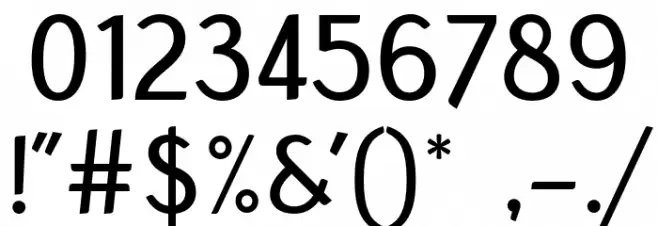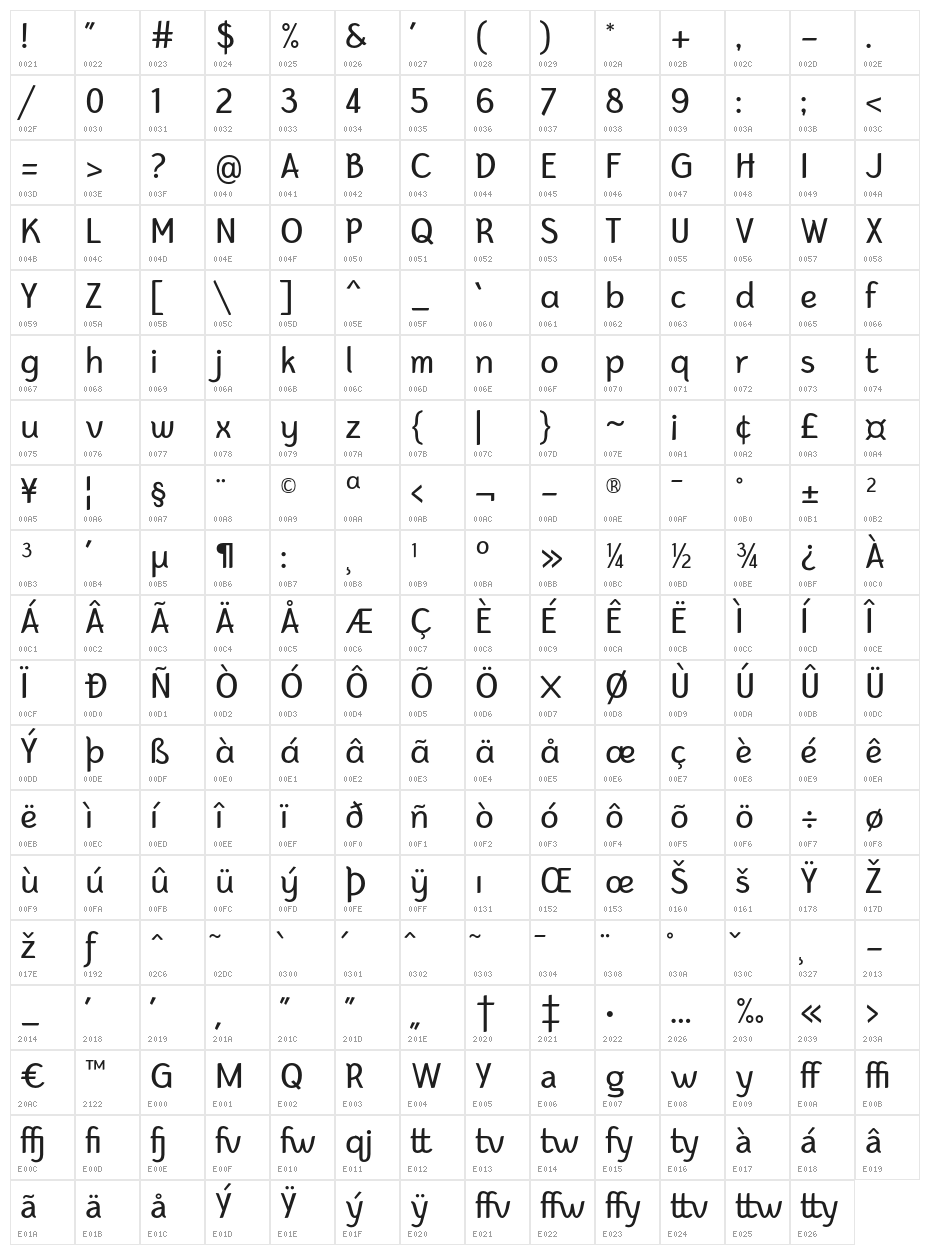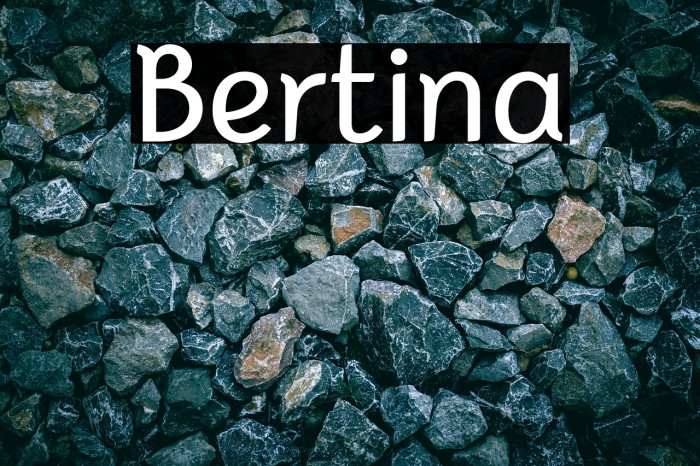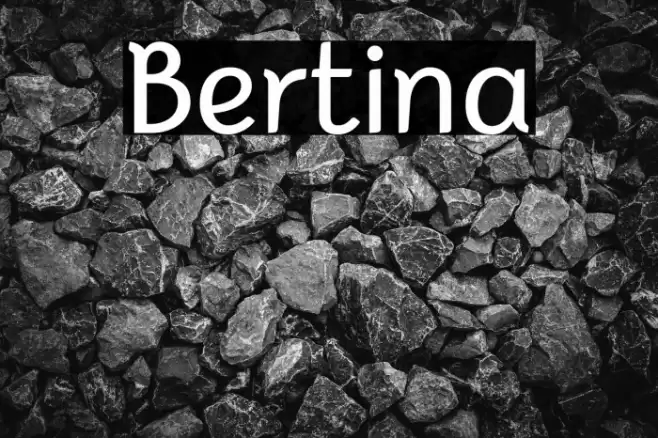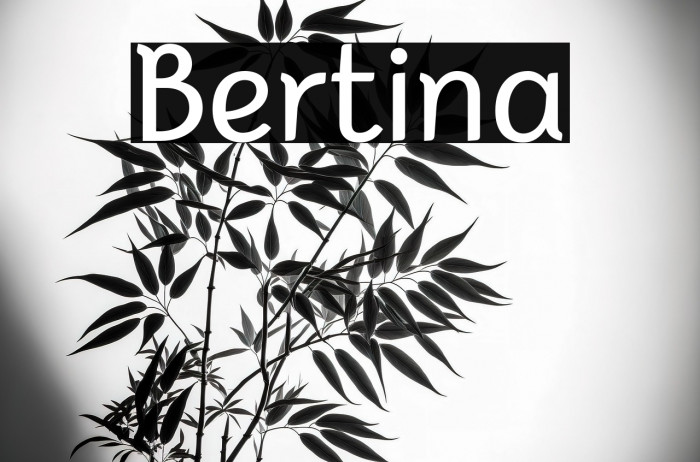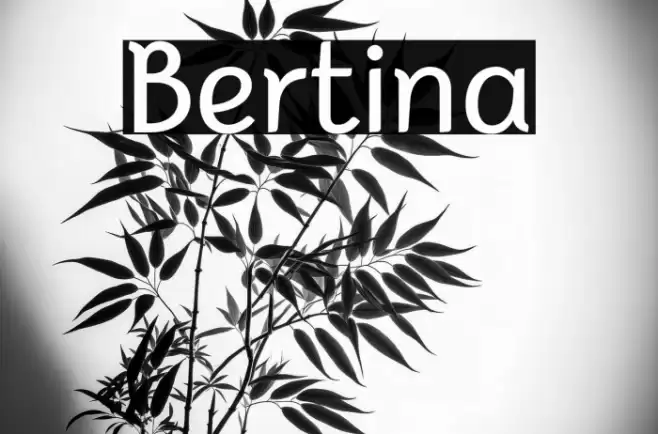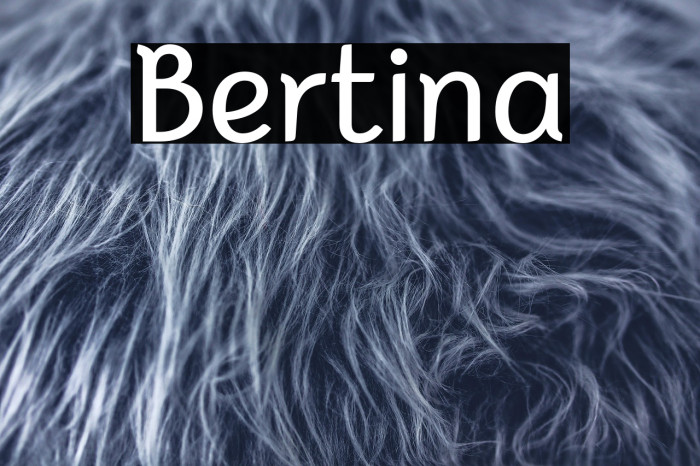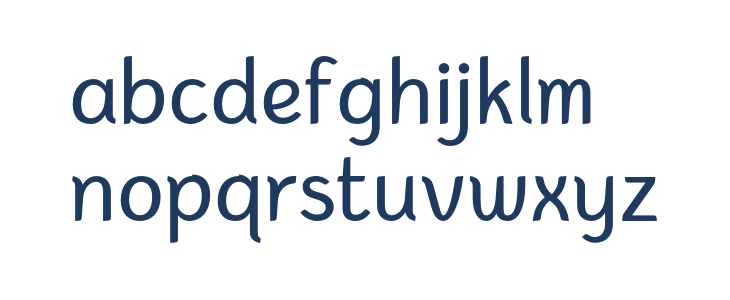
Bertina Font
Bertina Description
This font features a clean and modern sans-serif design with a slightly rounded appearance, giving it a friendly and approachable feel. The characters are well-proportioned, with a consistent stroke width that maintains readability across different sizes. The uppercase letters are bold and assertive, while the lowercase letters have a softer, more casual look. The numerals are clear and distinct, making them suitable for a variety of applications. Special characters are included, maintaining the font's cohesive style. This font is versatile, suitable for both digital and print media, and can be used effectively in both formal and informal contexts.